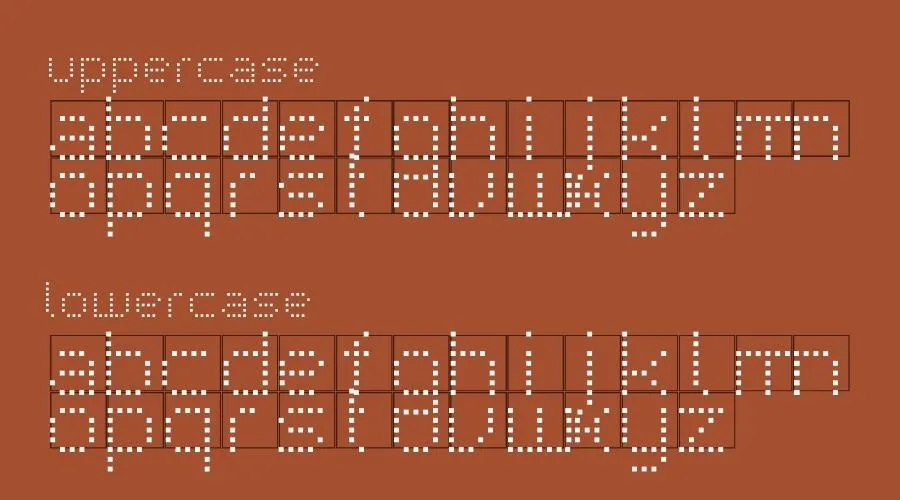
Superpoint Font
About Superpoint Font
The Superpoint Font is under the category of the fancy texture family. It was created by Sven Stuber with a unique and attractive structure look impression. It has both file formats OpenType and TrueType. It is perfect for multiple websites and android software.
This texture gained popularity in very short terms because of its unique texture look appearance. The online generator tool of this cut texture will transform all your normal characters into modern and stylish shapes.
It has a thin and delicate texture that is suitable for all your fun designs and tasks. This font can also be utilized for CSS and adobe photoshops.
The fancy typeface family of this font allows for a variety of services. For all of your creative ideas and projects, including social media posts, flags, signs, logo inventions, printings, and multiple other tasks, it is an excellent option.
In addition, many designers utilize it for more playful designs and software such as adobe photoshop, Illustrator, canva, PowerPoint, and many more. The copy-and-paste quality of this font will give your project a more attractive look for visitors.
Name Superpoint Font
Designer Sven Stuber
Style Fancy
• Superpoint Regular
• Superpoint Bold
What type of Font is Superpoint Font?
The Superpoint font is under the category of the fancy texture family. It has both file formats OpenType and TrueType. It is perfect for multiple websites and android software.
Who is the designer of Superpoint Font?
This outstanding typeface was created by Sven Stuber with a unique and attractive structure look impression.
Can I use Superpoint Font for my logo design?
Yes! You can utilize it for your logo creations and can create your layout look more lavish and great. It is very best for all your fun structures and tasks.